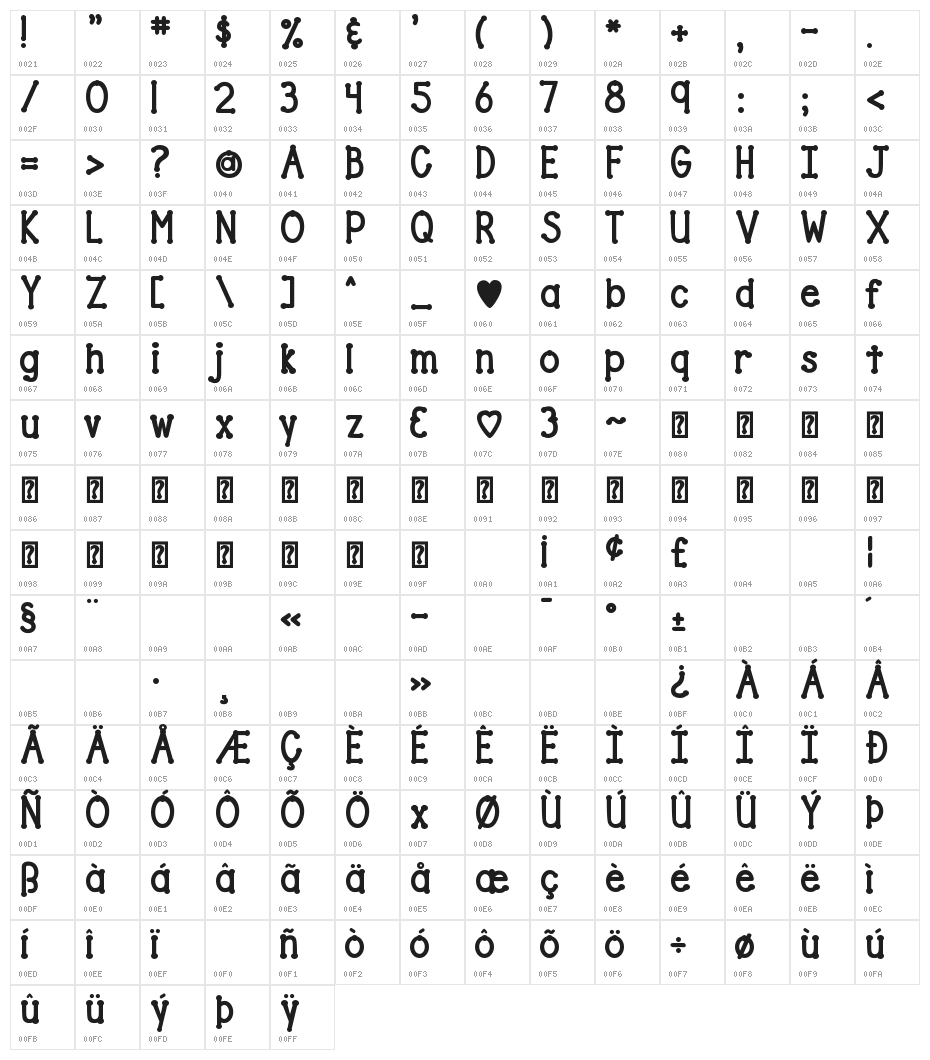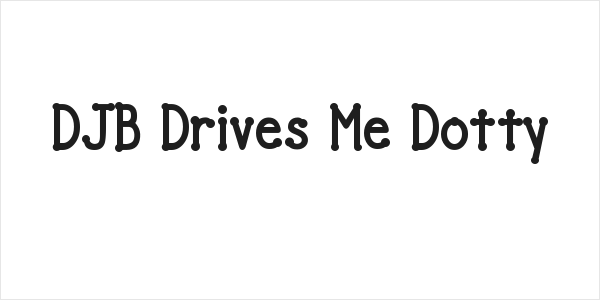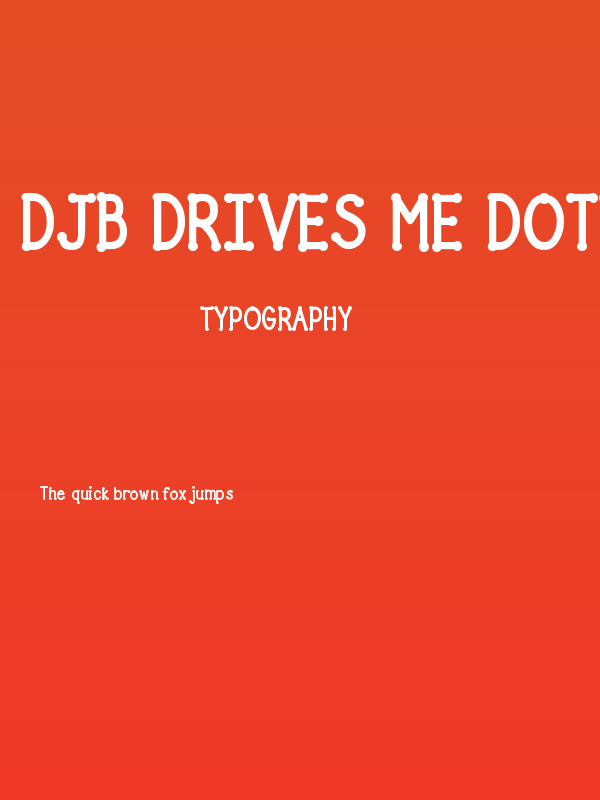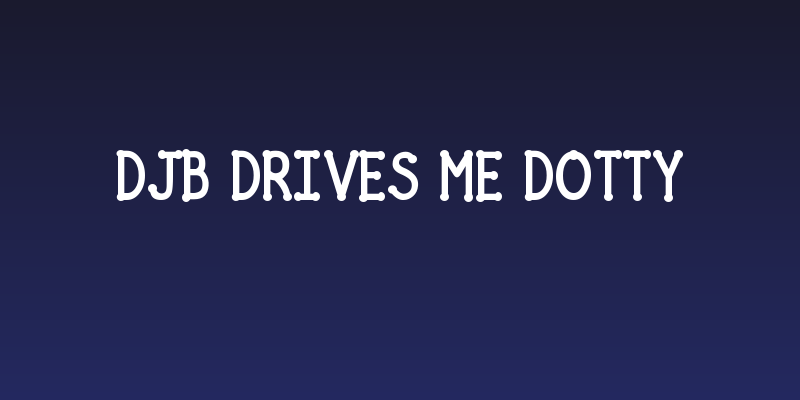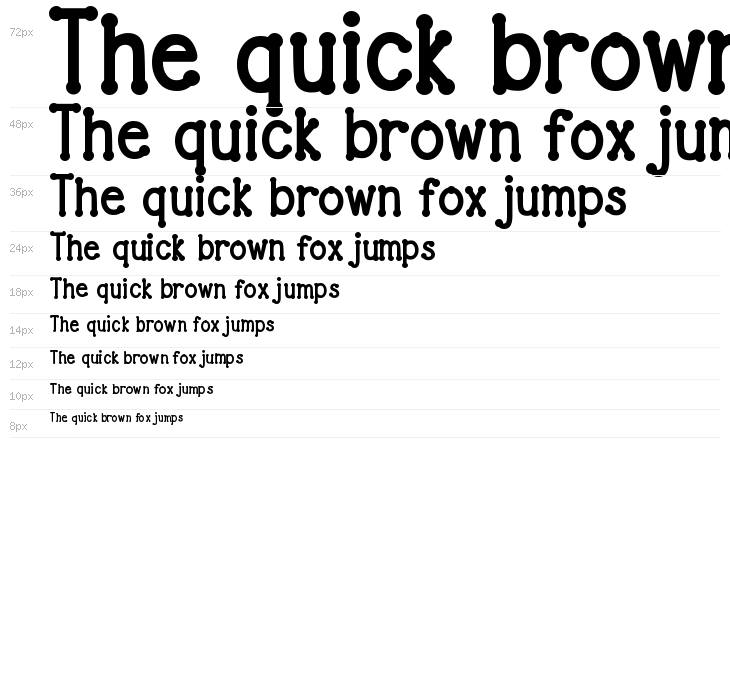
DJB Drives Me Dotty Font
DJB Drives Me Dotty Description
This playful and whimsical font features rounded, bubbly characters that give it a unique and friendly appearance. The letters are bold and have a consistent thickness, with a slight curve at the ends that adds to its charm. The font maintains a uniform stroke width throughout, creating a cohesive look. The characters are well-spaced, ensuring readability while maintaining its distinctive style. Its playful nature makes it ideal for projects that require a touch of fun and creativity. The font includes a full set of uppercase and lowercase letters, numbers, and a variety of special characters, making it versatile for various design needs.